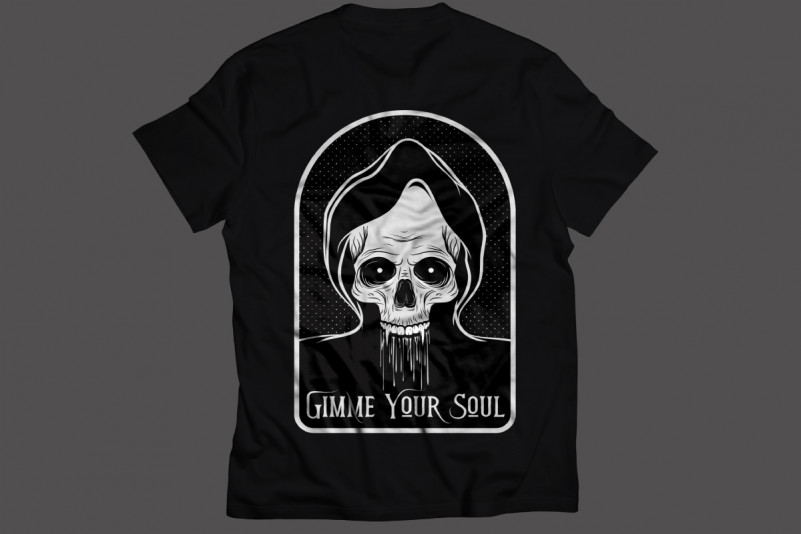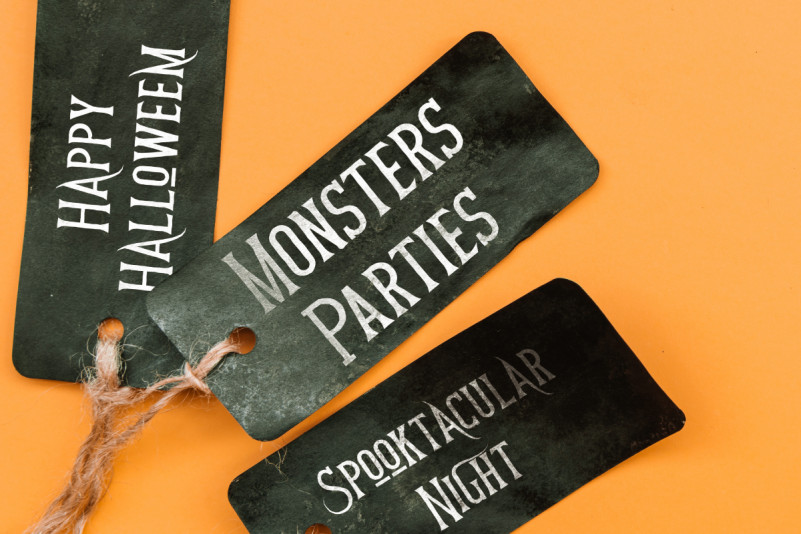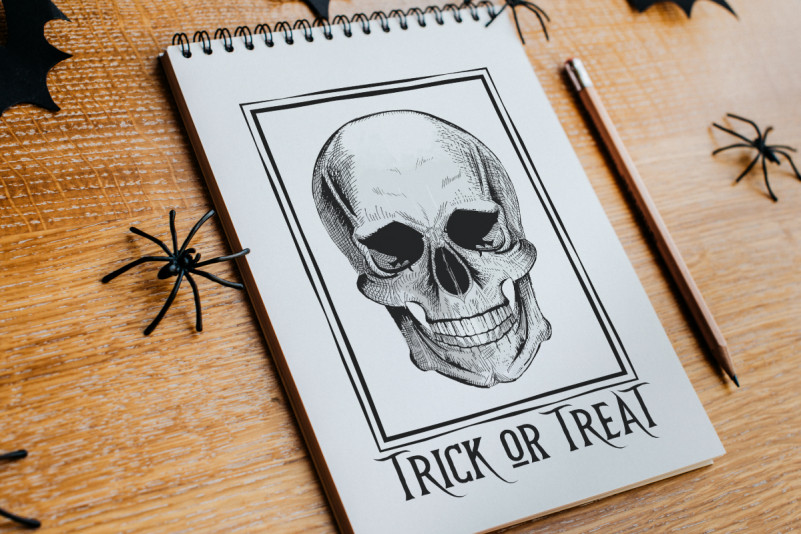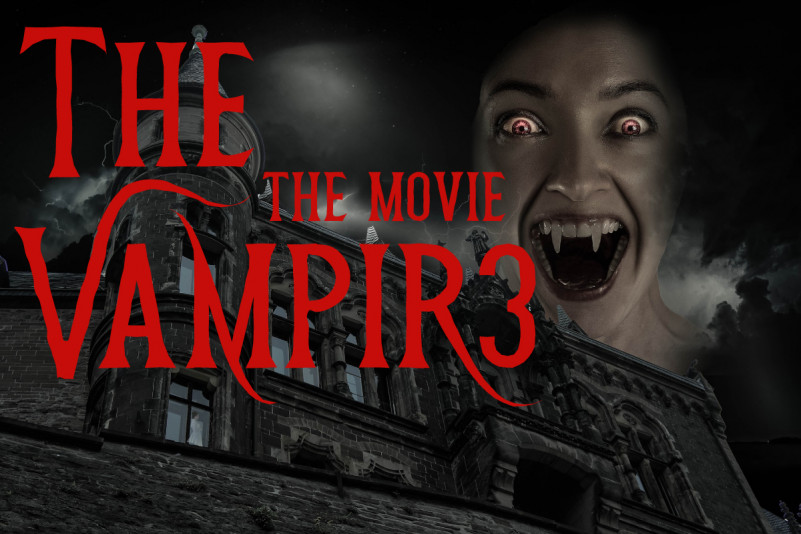
Vampire King Font
Vampire King Display Font
This font is handcrafted for any your special projects including : headlines, promotion, events, branding, advertising, magazine, signage, invitation, stationery, social media posts, label, or and any projects that need unique special style. The industries for this font is Game, Movie, Music, Sport, Motorclub, etc. Vampire King Mysterious Font includes full set of gorgeous uppercase and lowercase letters ,numerals and Multi languages characters.